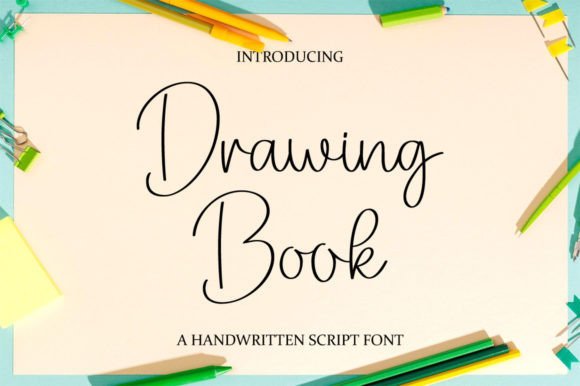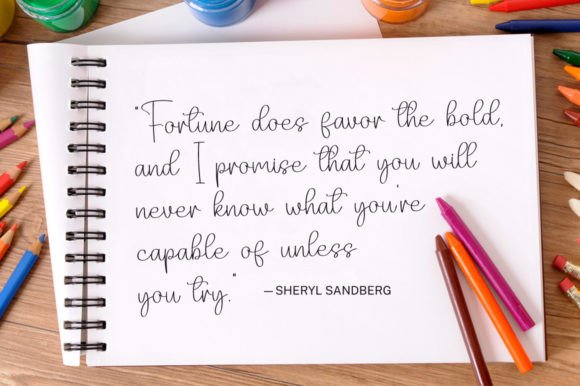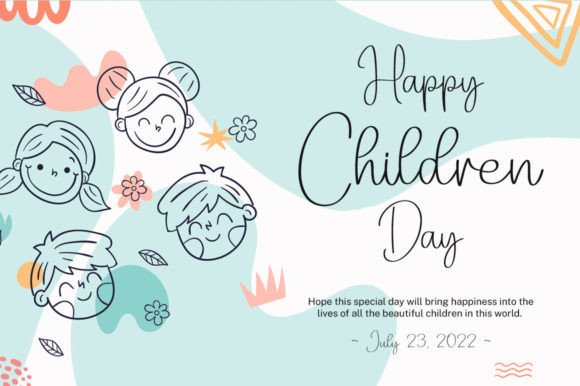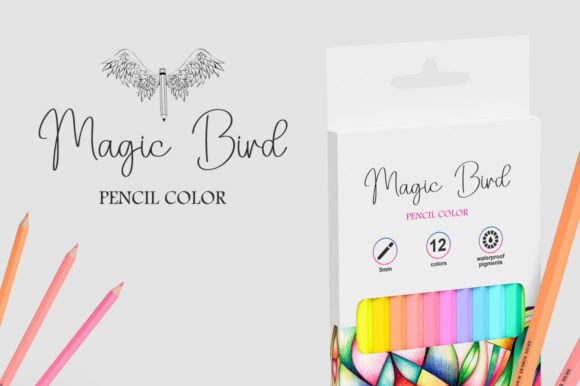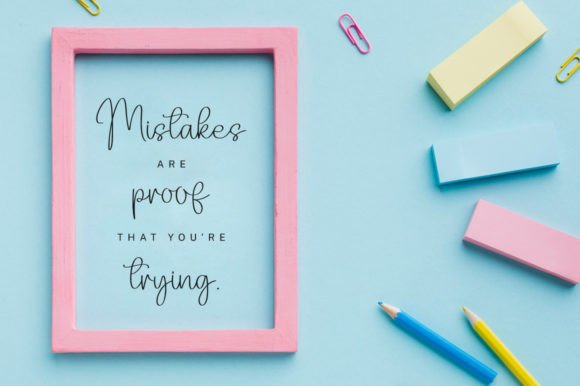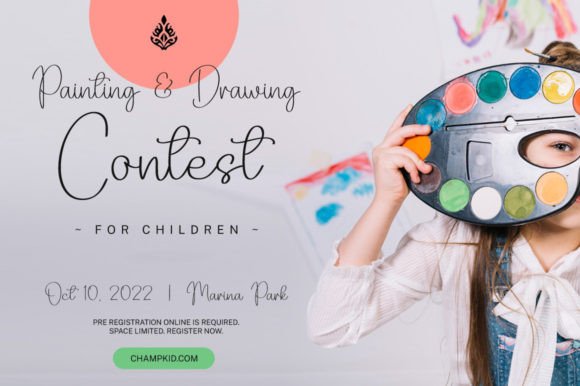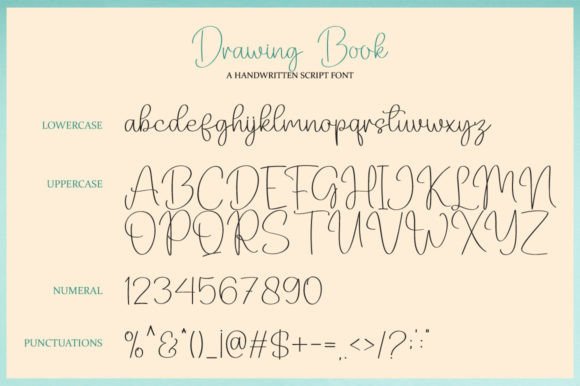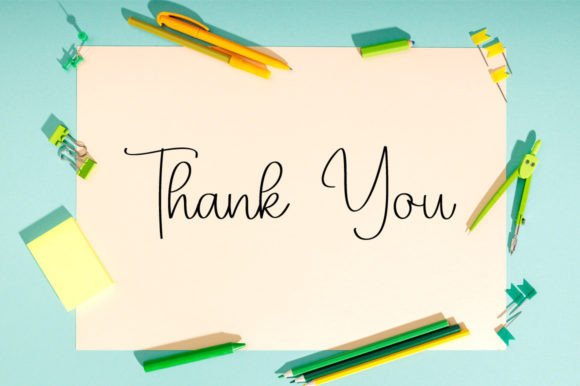
Drawing Book Font
About Drawing Book Font
Drawing Book is a lovely and timeless handwritten font. It is the best choice for creating eye-catching logos, branding, and quotes.